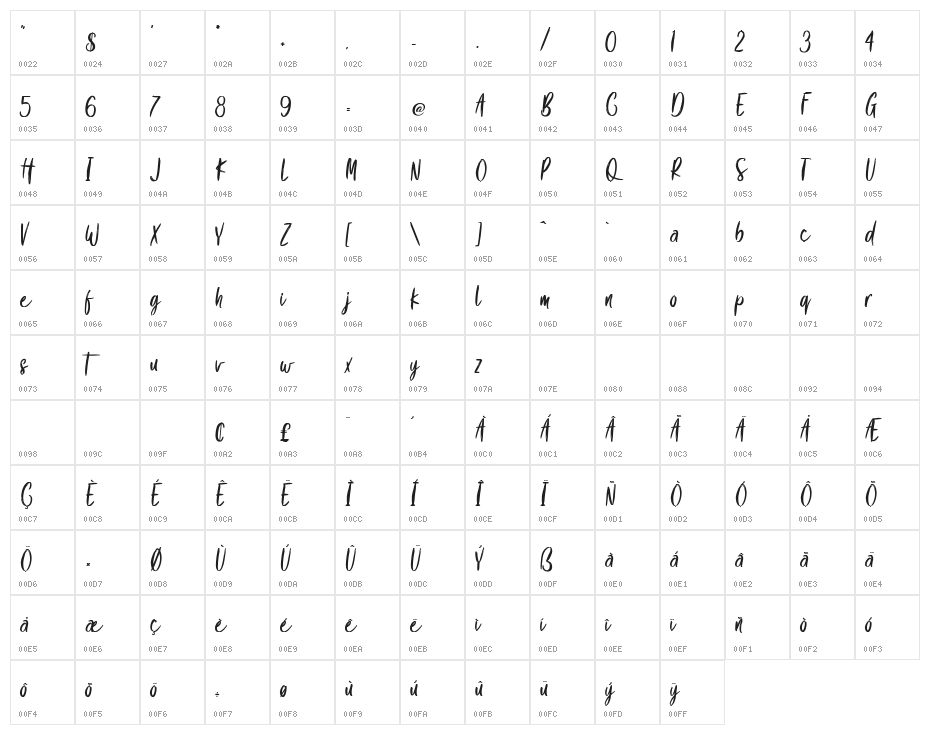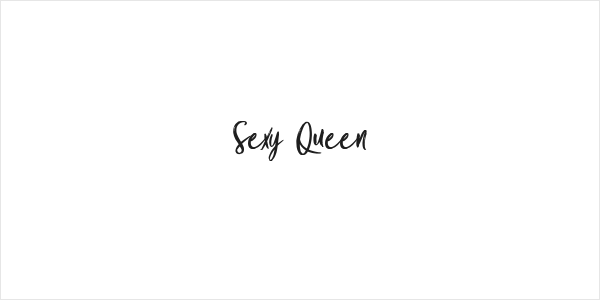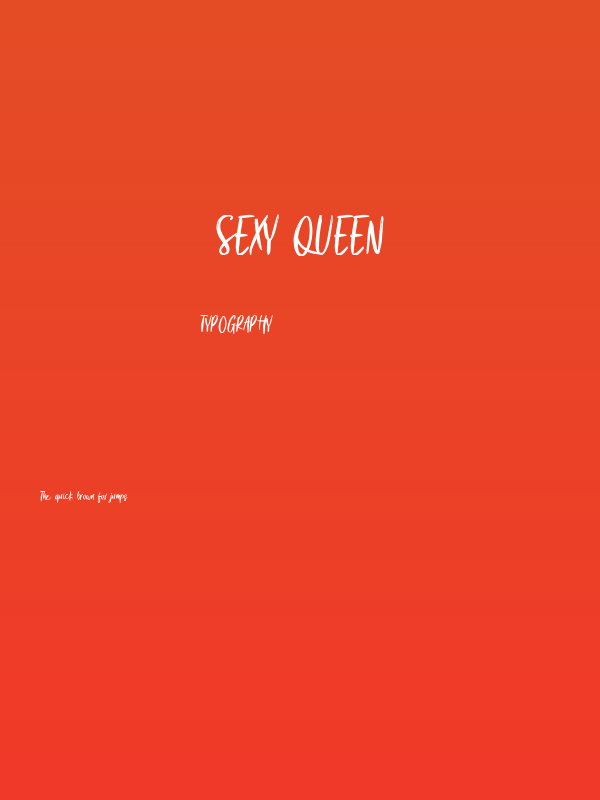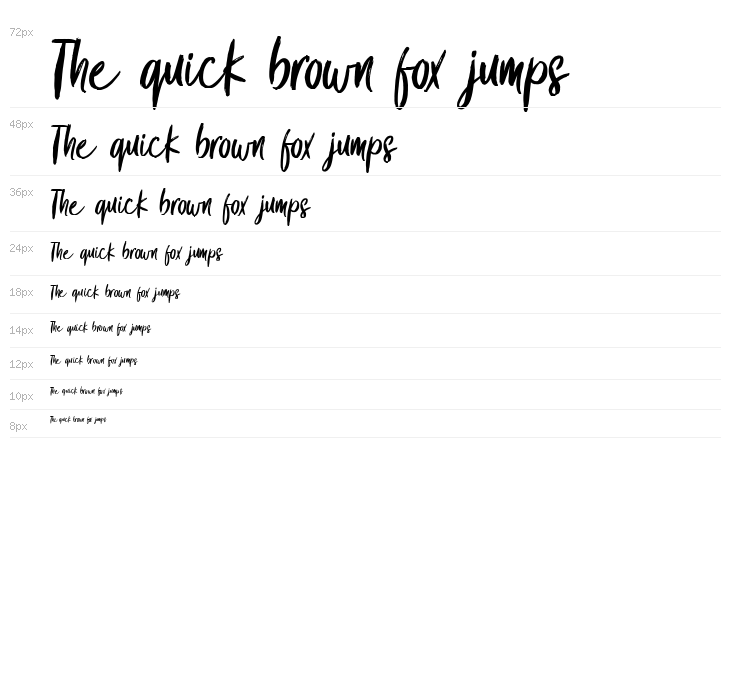
Sexy Queen Font
Sexy Queen Description
This font exudes a bold and expressive style, characterized by its brush-like strokes and dynamic flow. The uppercase letters are tall and commanding, while the lowercase letters maintain a cohesive, fluid appearance. The numbers and special characters follow the same energetic and artistic design, making the font versatile for various creative applications. Its hand-drawn aesthetic gives it a personal and authentic feel, perfect for projects that require a touch of individuality and flair.
Overall StyleModern, Artistic
Proposed ProjectsIdeal for branding, posters, invitations, and social media graphics.